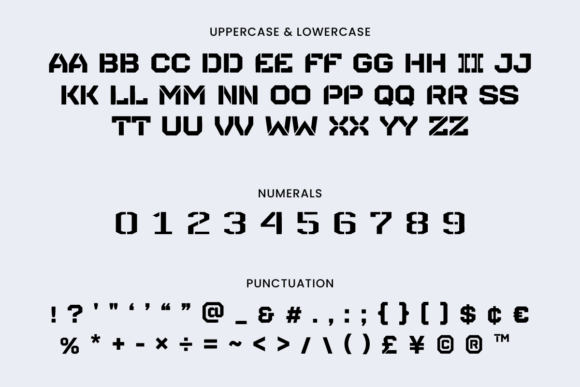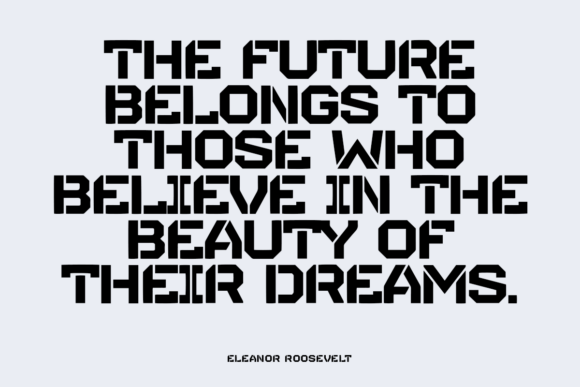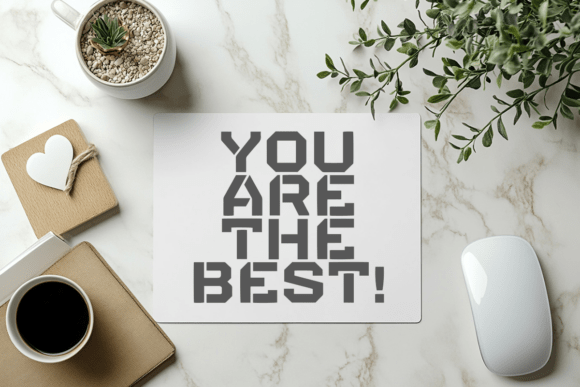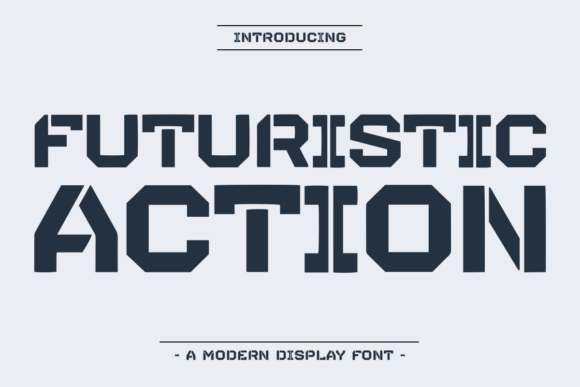
Introduction to Futuristic Action Font
Step into tomorrow with Futuristic Action, a bold, high-energy typeface built for designs that demand impact and momentum.
Sharp angles, sleek lines, and dynamic letterforms give this font a sense of speed and precision-like it’s constantly in motion, pushing forward into the next frontier Crafted with a modern, tech-inspired edge, Futuristic Action is perfect for gaming graphics, sci-fi themes, esports branding, posters, headlines, and any project that calls for a powerful, cutting-edge aesthetic.